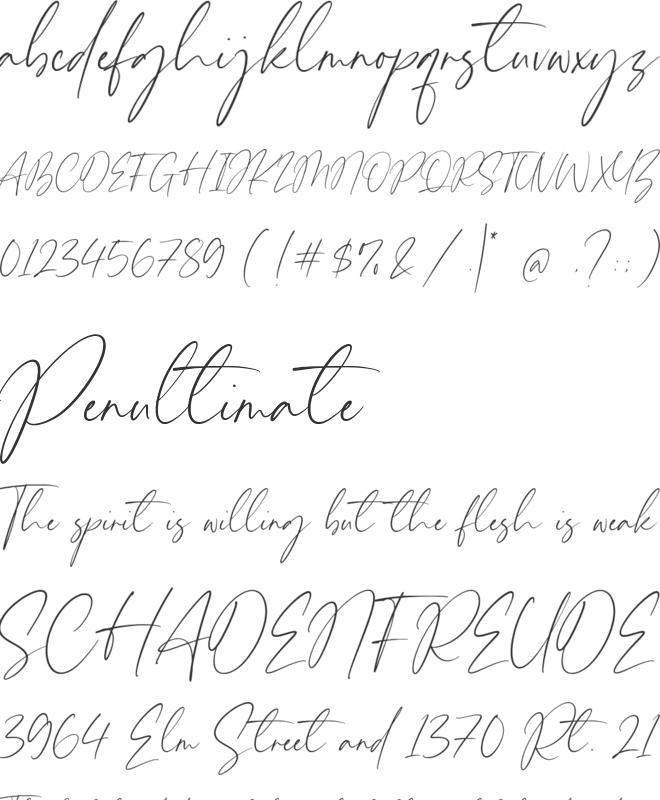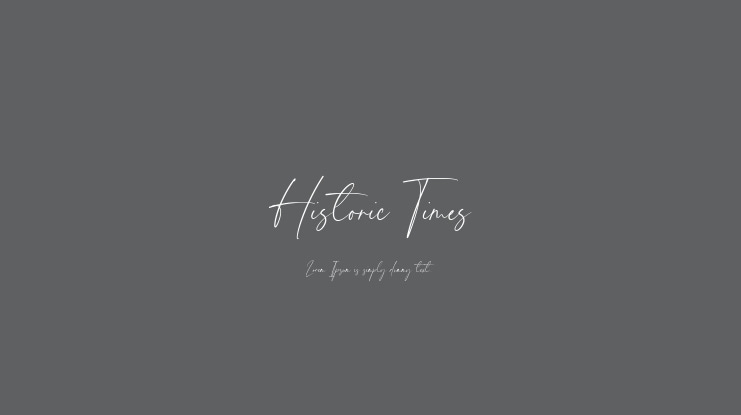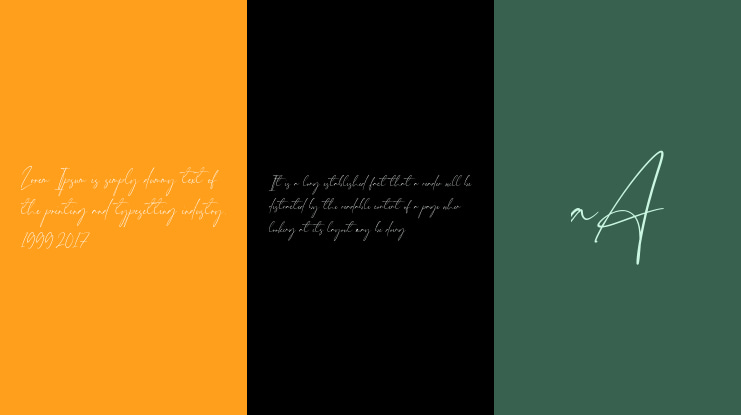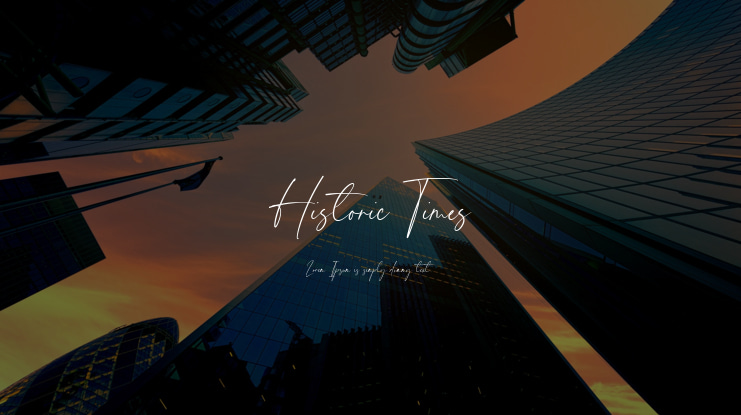
Historic Times Font
Proudly Present Historic Times
Historic Times is a Handwritten script font that is modern and fresh, and will bring a warm and inviting feel to your business. Take advantage of the fonts and experience the magic for yourself.
Historic Times is perfect for product packaging, branding project, megeenazine, social media, wedding, or just used to express words above the background.
-Full Set of standard alphabet and punctuation
– Historic Times also multilingual support.